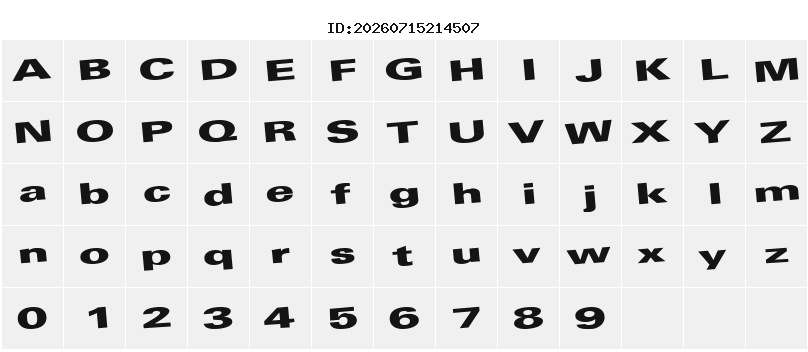
At ttnorm Preview
• Font Name: At ttnorm
• Full Font Name: At Regular ttnorm
About At ttnorm.ttf
At ttnorm.ttf is a modern, elegant sans-serif font designed for ultimate readability and visual harmony. Perfect for branding, headlines, web design, and print materials.